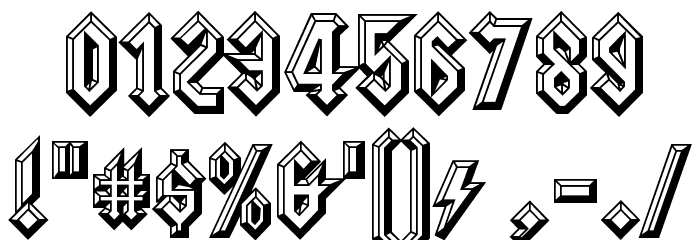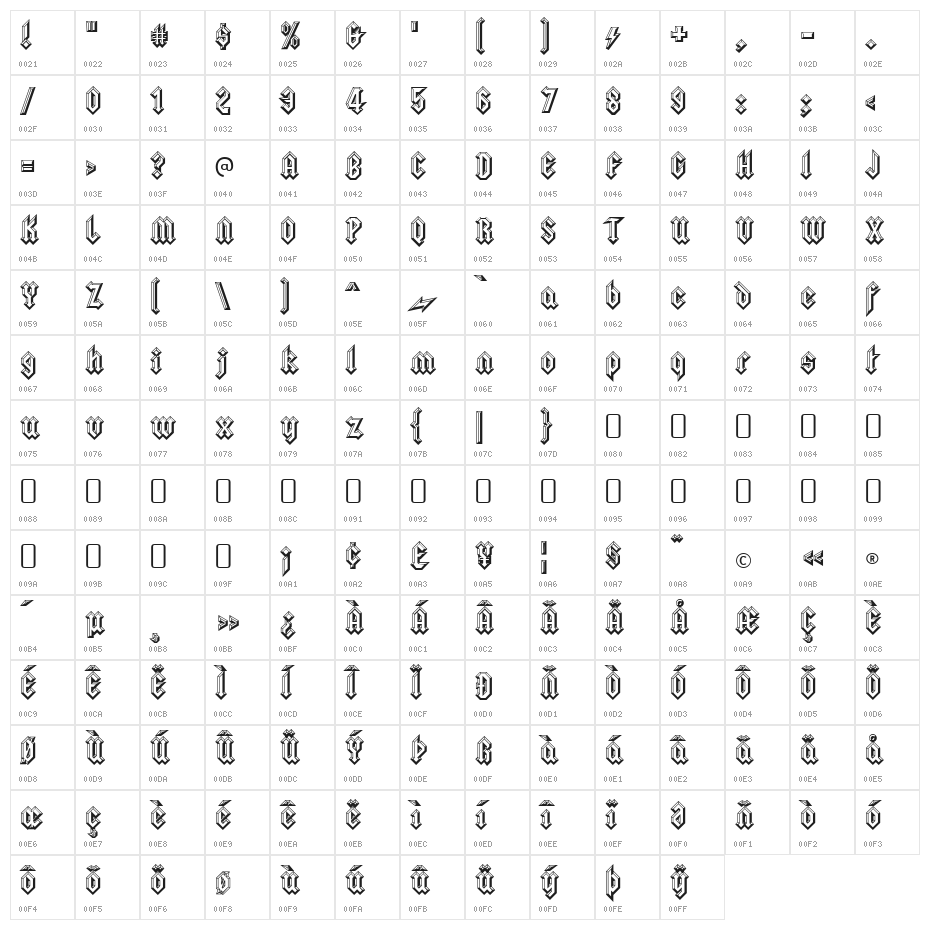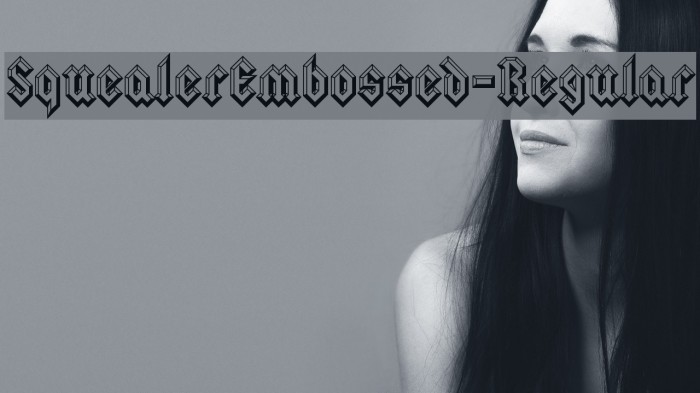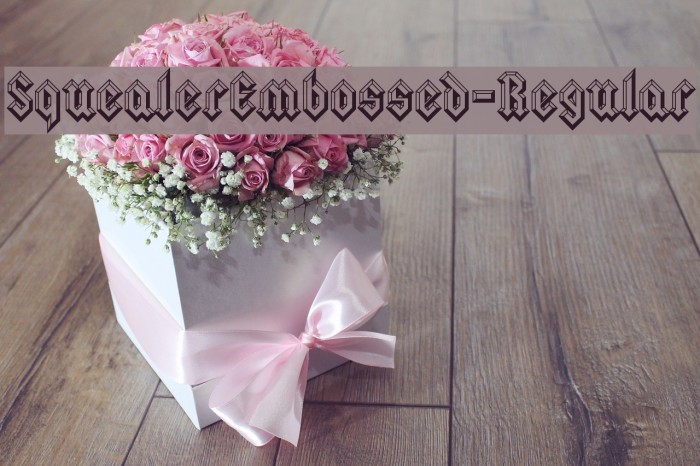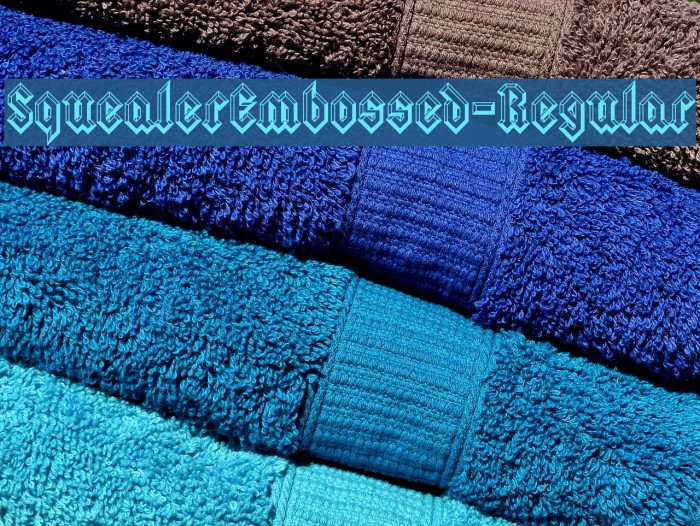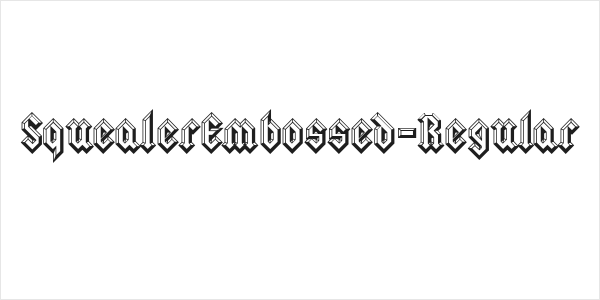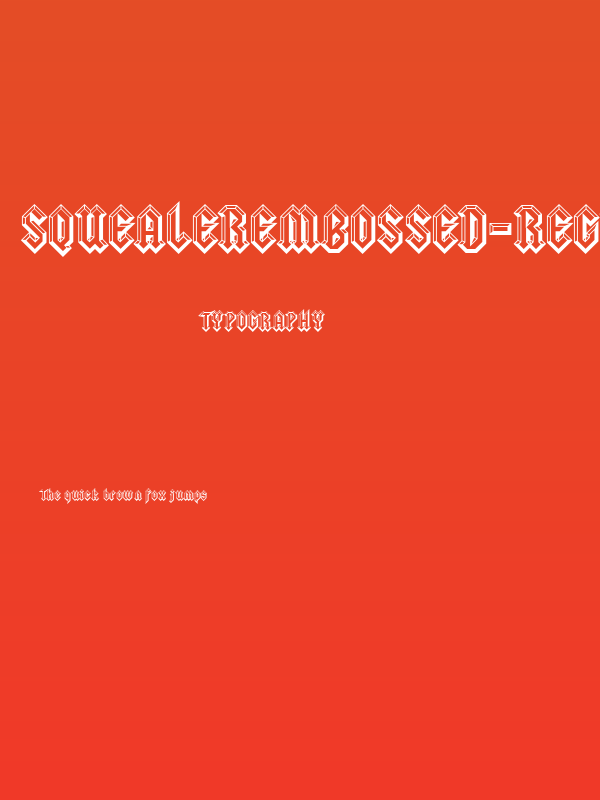
SquealerEmbossed-Regular Font
SquealerEmbossed-Regular Description
This font features a bold, embossed style with a three-dimensional effect, giving it a striking and impactful appearance. The characters are designed with sharp edges and angular lines, creating a sense of depth and shadow. The uppercase and lowercase letters maintain a consistent style, with the uppercase being more pronounced. Numbers and special characters follow the same design principles, ensuring uniformity across all glyphs. The font's unique style makes it stand out, ideal for projects that require a bold statement.